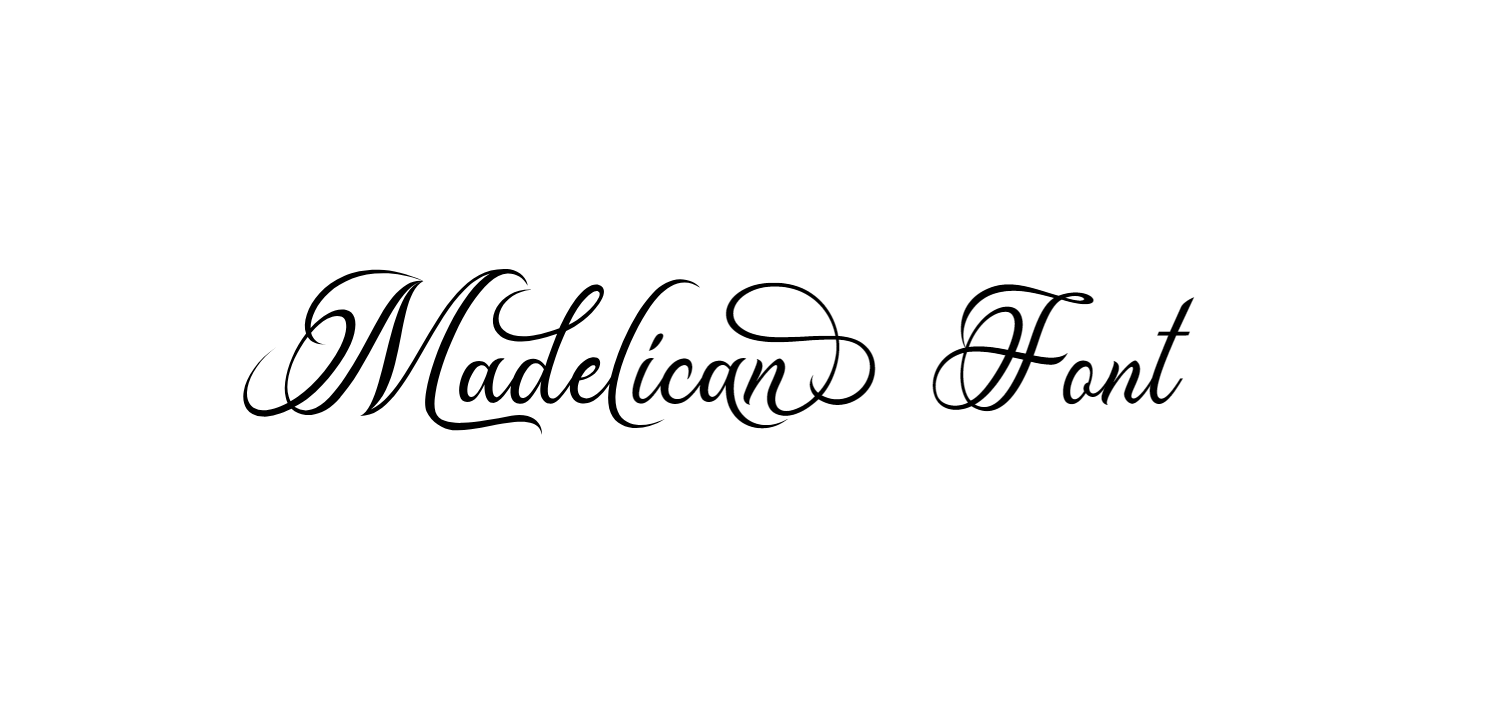
Madelican
Madelican is a calligraphy font made by Rangga Singgih Subekti (2019). It has that hand-lettered, flowing feel people look for when regular type seems too stiff. You can download it for free and test it with your own words in the preview above.
- Designer: Rangga Singgih Subekti
- OpenType features: Ligatures and one stylistic set
- Extra characters: 90 copy-and-paste alternates (Private Use Area)
You get every letter from A to Z in both cases and all the numbers from 0 to 9, which means Madelican can handle full sentences, dates and prices. Everyday marks like &, !, ? and @ are there too. Thanks to its accented letters, it also works for Spanish, French, German, Portuguese and Italian, not just English.
Madelican is a natural fit for wedding invitations, certificates and elegant quotes. Its lowercase letters are small compared to the capitals, so set it a size or two bigger than usual. Script fonts read best in short bursts, so keep it to names, titles and one-line quotes. Skip all caps: script capitals are drawn to start a word, not to fill one.